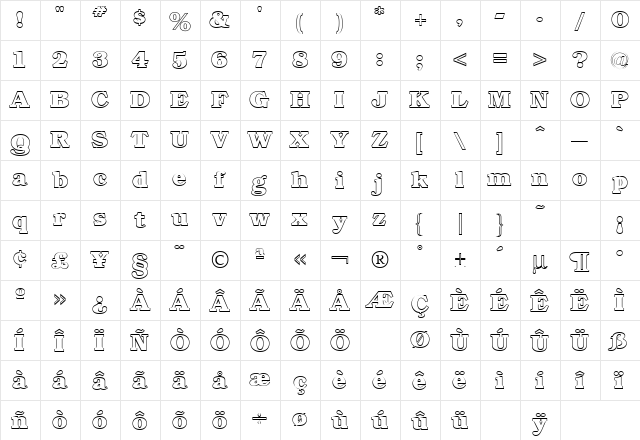
Bookman Outline Regular
Design Context for Bookman Outline Typeface
Bookman Outline brings ornamental detail and strong personality to headlines and identities, where visual impact matters more than quiet functionality.
Font Pairing: Pair with a clean neutral sans-serif for body copy to let Bookman Outline's character lead without overwhelming the composition.
Pro Tip: Treat Bookman Outline as the centrepiece of your typographic hierarchy. One strong heading set in a decorative face can carry an entire layout.